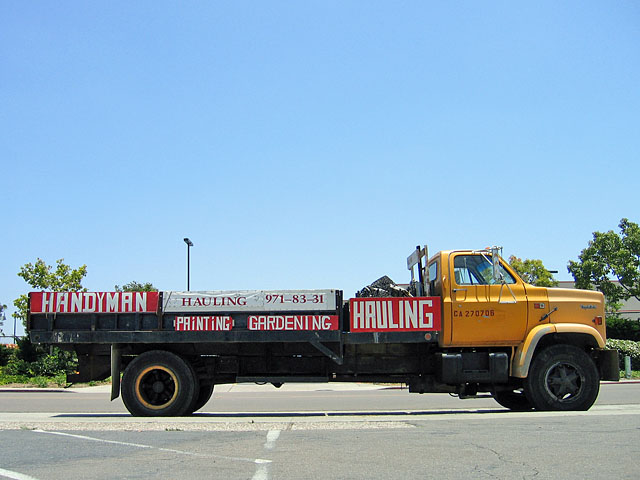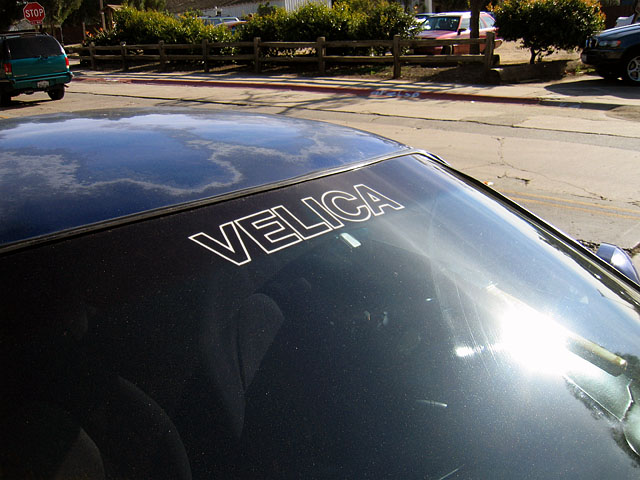
We asked different creatives to give a contribution about:
Car lettering as a visual chance, in and on a personal public space.
Automotive-type?
Two quintiessential forms of automotive typography, the top of the windshield lettering (Hel-velica)...
and the handyman truck lettering.